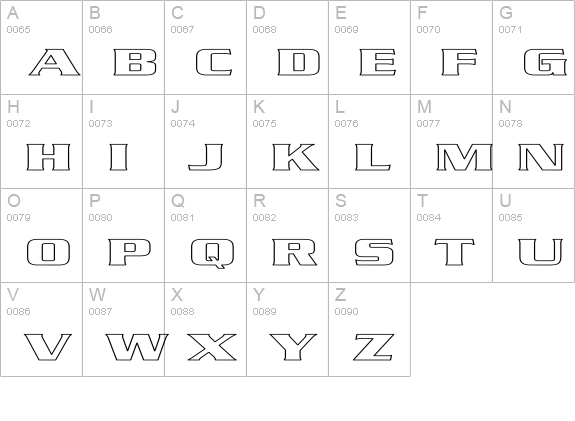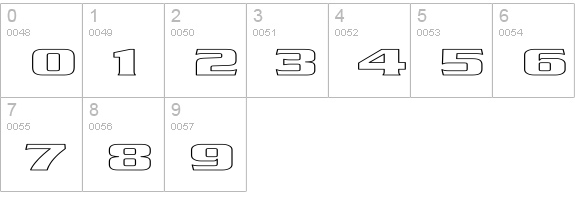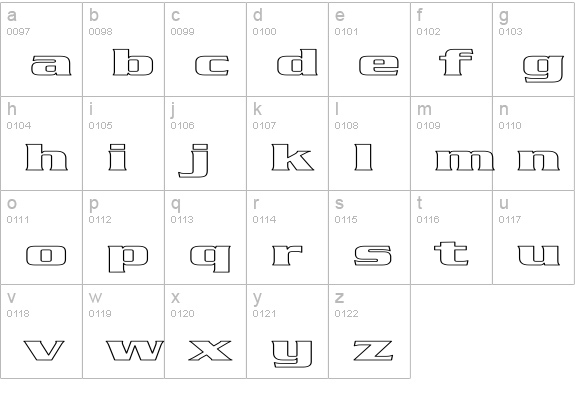
Serpentine-Bold-Bold HE Font Details
Serpentine-Bold-Bold HE is a strong, high-contrast variant in the Serpentine typeface family \xE2\x80\x94 well suited to headlines, attention-grabbing titles, and strong calls-to-action.
Serpentine-Bold-Bold HE font is a stunning display typeface that exudes power and elegance. With its bold and commanding letterforms, this font demands attention and makes a strong statement in any design project. Featuring intricate details and a unique serpentine-like design, Serpentine-Bold-Bold HE font stands out from the crowd, adding a touch of sophistication to any typographic composition. Its clean lines and sharp edges create a modern and sleek appearance, making it perfect for logos, headlines, and branding materials. But what makes Serpentine-Bold-Bold HE font even more remarkable is that it is available for free! Yes, you read that right. This extraordinary typeface can be freely downloaded at FontsMarket.com, giving designers and creatives the opportunity to enhance their work without breaking the bank. Whether you are working on a print project, a website design, or any other creative endeavor, Serpentine-Bold-Bold HE font is a versatile choice that will elevate your designs to new heights. Its bold and impactful presence will captivate viewers and leave a lasting impression. So don't miss out on this incredible opportunity to add Serpentine-Bold-Bold HE font to your font collection. Visit FontsMarket.com today and download it for free. It's time to unleash your creativity and make a bold statement with this exceptional typeface.